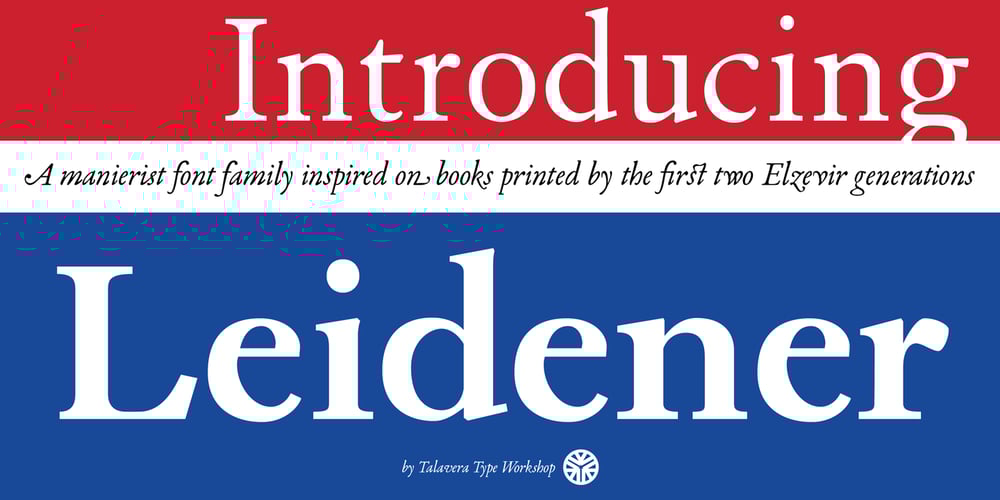
Leidener Font Family was designed by Jesus Barrientos and published by Talavera. Leidener contains 6 styles and family package options. This font family is inspired by printed work made by the Elzevir family back in the XVIIth century at Leiden (NL). They worked with material from several type designers, but further investigations sends us to the tracks of one in particular: Robert Granjon. Granjon italics were way ahead of his time, making some really beautiful signs like swashy ampersands and minuscule v letters. This font also contains old style figures in the same fashion as they were printed, like the flipped number 8 and open forms in 6 and 9. This is as much a revival as an original design, because of their weights bold and heavy (both with italics) that were inspired on some titles. In this font you can also find a lot of ligatures, small caps, diacritics and even a fleuron for each weight and variation. Leidener came up from two books: Constantini Imperiatoris (1611) and Exercitationum Mathematicarum (1657), printed by Louis and John Elzevir on their Leiden Workshop, back in the day.